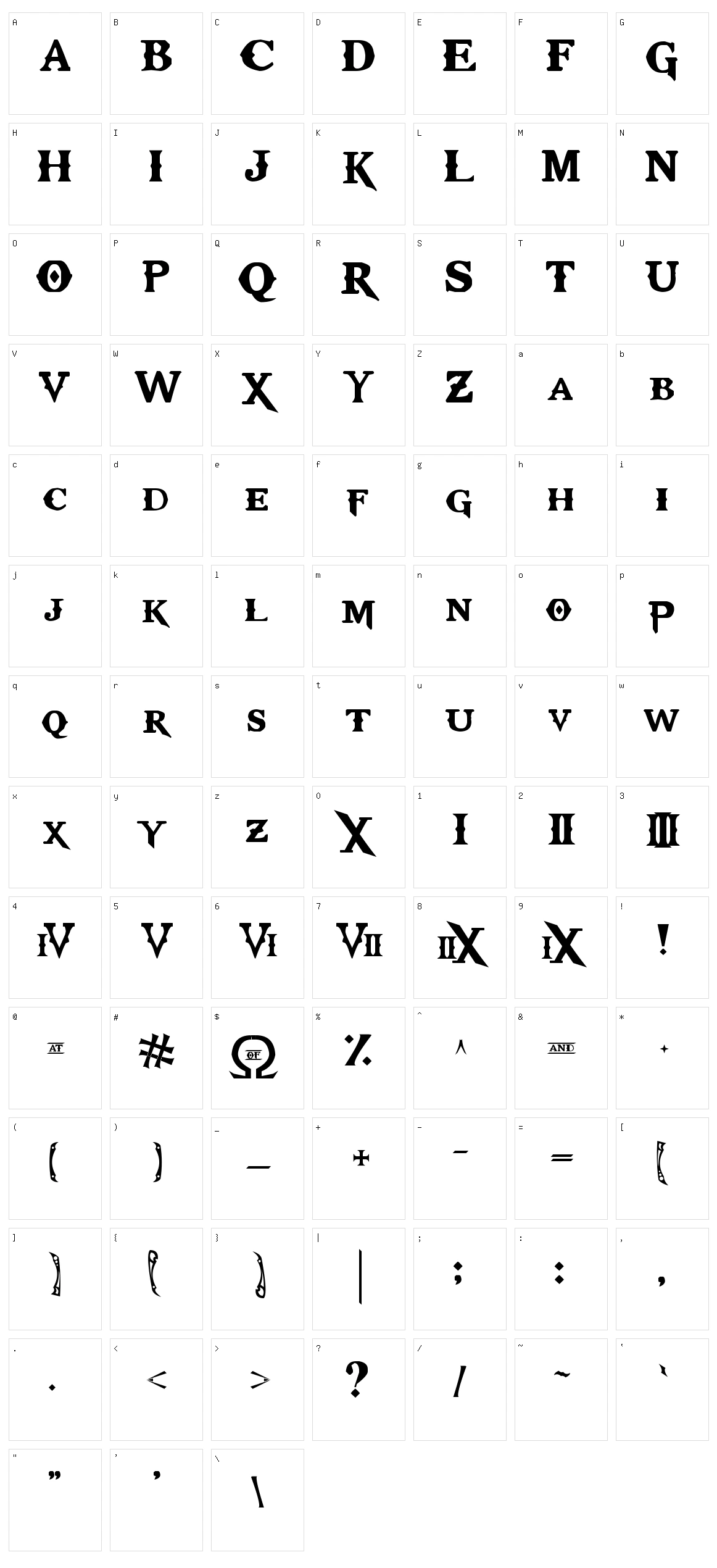
Kratos TrueType
Designed by: Saar Raz
Kratos TrueType - God of War font
The new and improved version of my God of War font replica is here!
This version includes:
*ALL punctuation marks are included, and some existing ones were improved!
*New highly detailed brackets from all 3 kinds!
*$ sign was improved to have an "of" inside to write GOD of WAR like in the logos!
*Some letters were improved to look smoother and nicer!
*Regular numbers were replaced by Roman numbers, which matches perfectly with the theme of the game!
*More various punctuation marks were added.